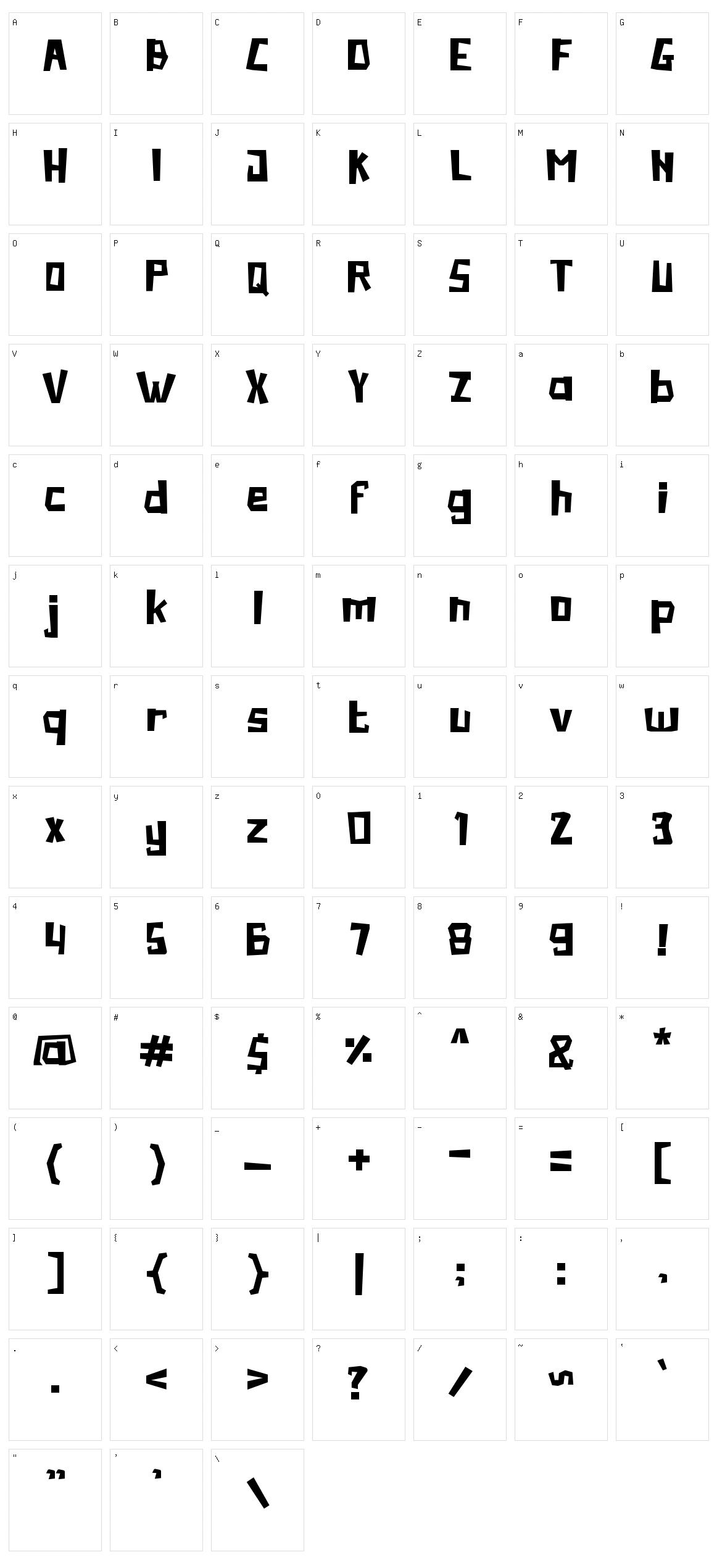
The free font Rasic Life is carefully designed by Modestype Studio, showcasing a thoughtful balance of creativity and usability and falls under the Cartoon font style. When you download the ZIP file, it contains only 37.83 KB of font files, making it lightweight and quick to download. Please review the license details below to understand permitted usage and distribution rights. If license information is not available, we recommend using this font for personal projects only or contacting the author directly for commercial usage permissions.